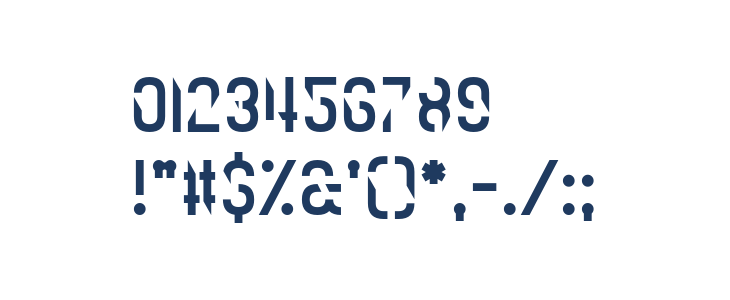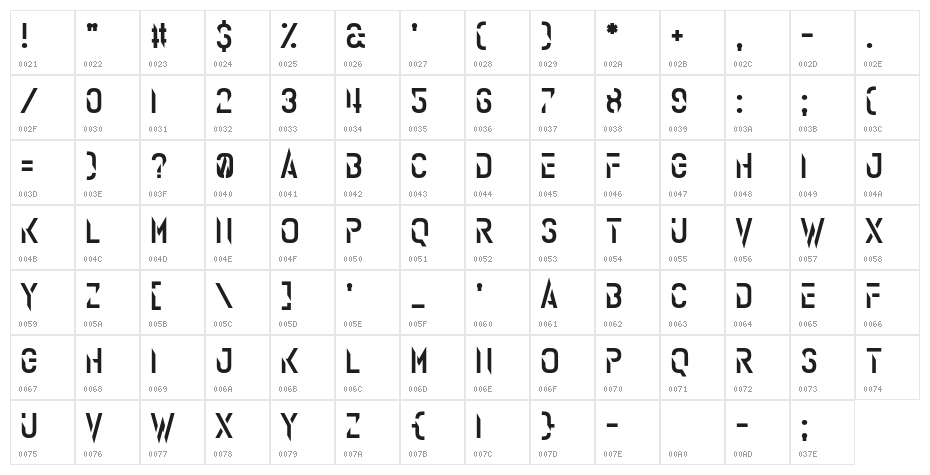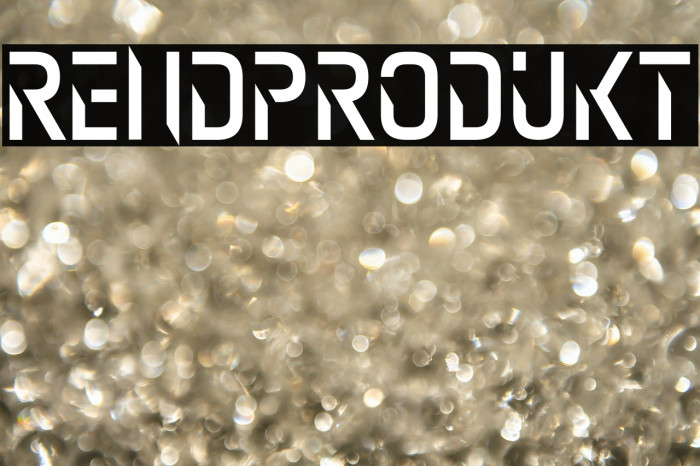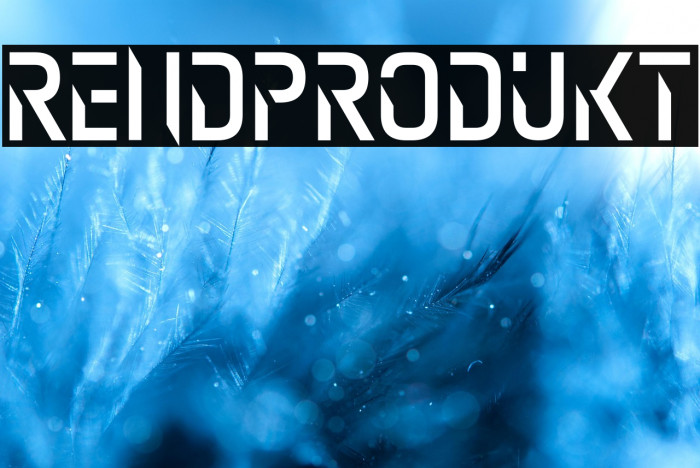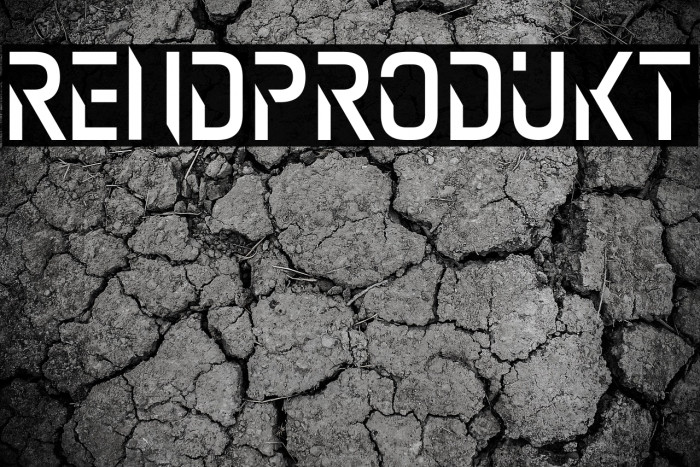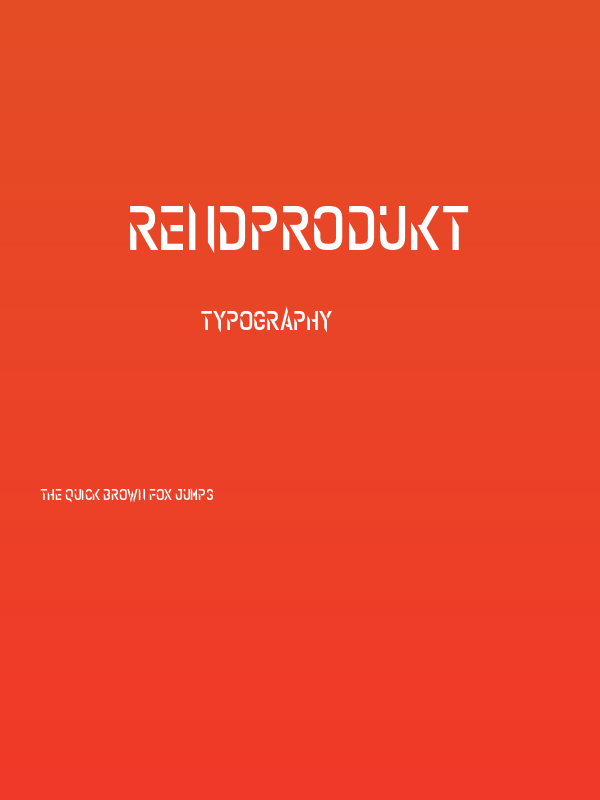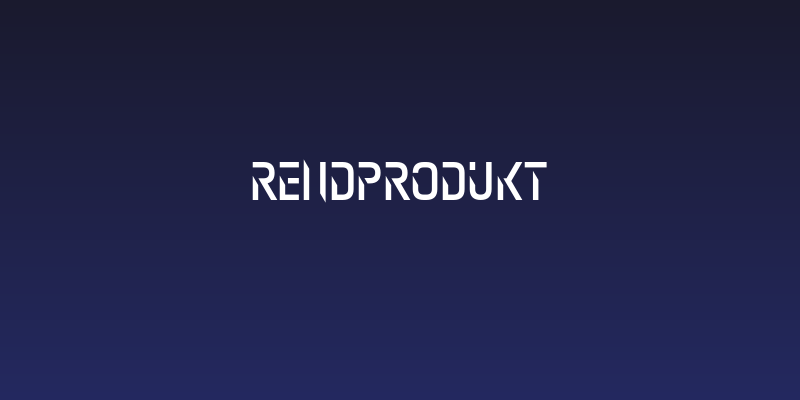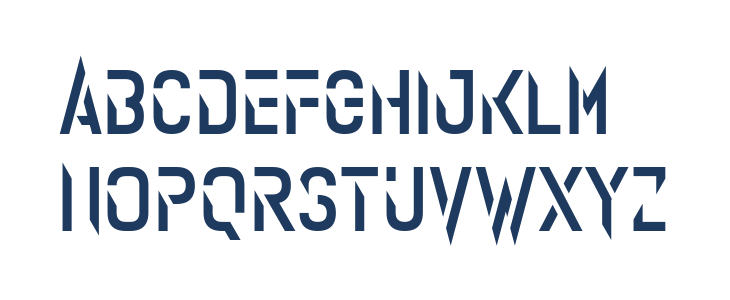
Rendprodukt Font
Rendprodukt Description
This font features a bold and striking design with sharp, angular cuts and geometric shapes. The characters are uppercase and maintain a consistent height, creating a uniform appearance. The style is distinctly modern, with a futuristic edge that makes it stand out. The numbers and special characters follow the same design principles, ensuring cohesion across all elements. The font's unique aesthetic is achieved through its high contrast and bold weight, making it ideal for attention-grabbing headlines or logos.